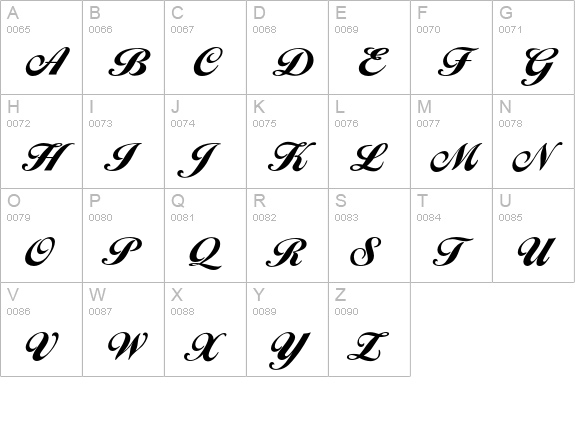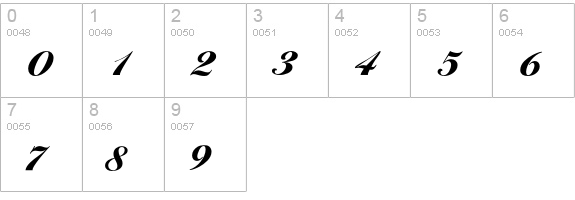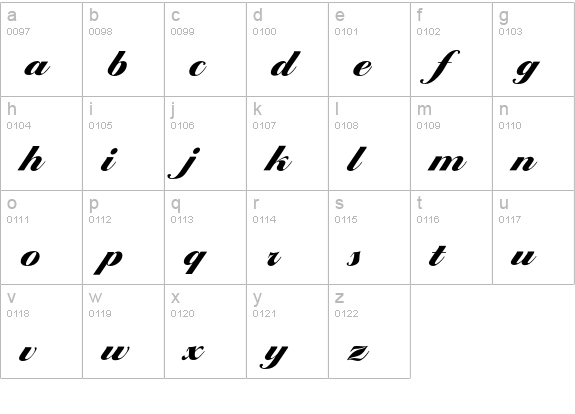
Ballantines-Hvy font is a versatile and bold typeface that exudes a sense of strength and elegance. With its thick and prominent letterforms, this font is perfect for creating eye-catching headlines, posters, and logos. The Ballantines-Hvy font carries a modern and sophisticated look that commands attention and leaves a lasting impression. What's even better is that this font is available for free download at FontsMarket.com. Whether you're a designer looking to add a touch of boldness to your projects or a creative individual seeking a unique font for personal use, Ballantines-Hvy font is a fantastic choice. Download it today and elevate your designs with this striking typeface.